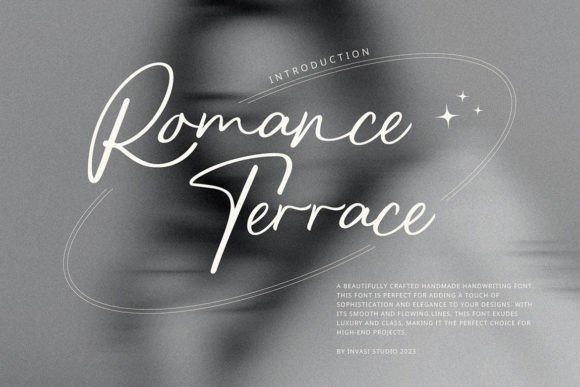
Step into the realm of elegance and sophistication with Romance Terrace Font, the epitome of luxury and refinement in the world of typography. This exquisite script brush font, brought to life by the talented invasistudio, is a symphony of beauty and grace, captivating hearts with its timeless charm.
Romance Terrace Font is the perfect choice for those seeking to elevate their designs with a touch of undeniable class. Its intricate strokes and flowing curves evoke a sense of romance and nostalgia, making it ideal for branding, wedding invitations, packaging, and menus. Its versatility extends beyond these traditional realms, seamlessly adapting to personal projects, adding a touch of glamour and sophistication to any creative endeavor.
Indulge in the opulence of Romance Terrace Font, a font carefully crafted to inspire and amaze. Its multilingual support ensures global accessibility, allowing your designs to resonate with audiences worldwide. With a range of alternates at your fingertips, you can effortlessly customize your text, creating unique and captivating compositions that leave a lasting impression.
Whether you're a seasoned designer seeking to elevate your brand's identity or an aspiring artist exploring the boundaries of creativity, Romance Terrace Font is your perfect companion. Its timeless design transcends trends, ensuring your creations remain relevant and captivating for years to come.
Embrace the allure of Romance Terrace Font, a font that speaks volumes without uttering a single word. Its elegant lines and refined aesthetics will elevate your designs to new heights, captivating audiences with its undeniable charm. Experience the fusion of luxury and creativity, and let Romance Terrace Font guide you towards design excellence.